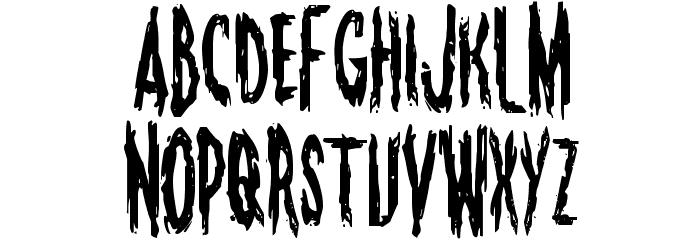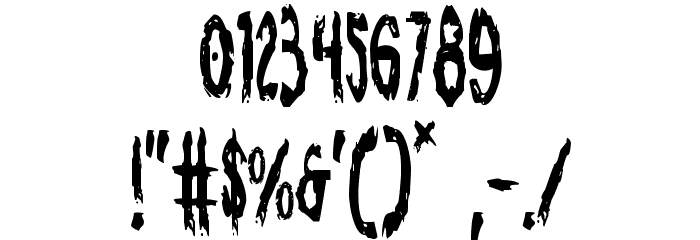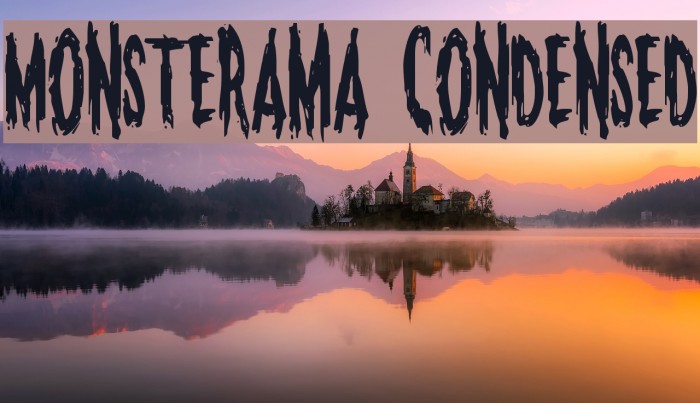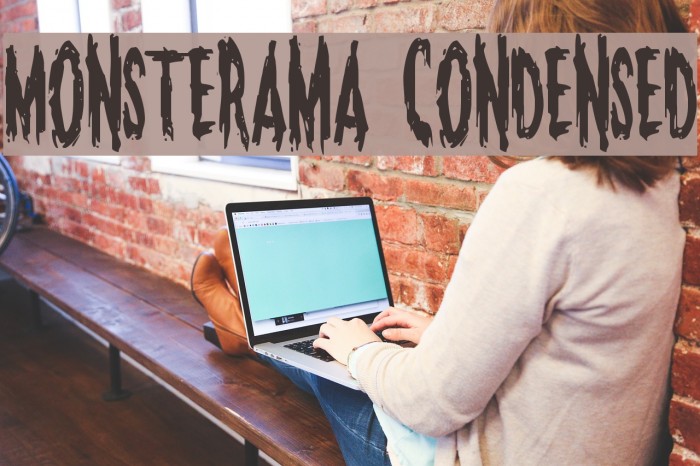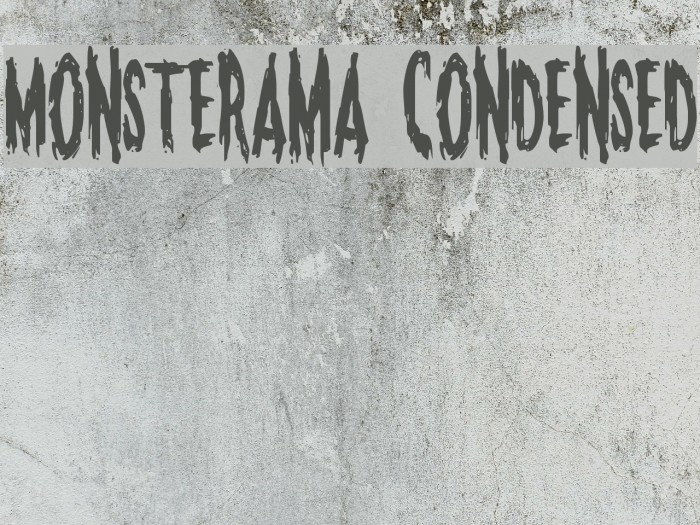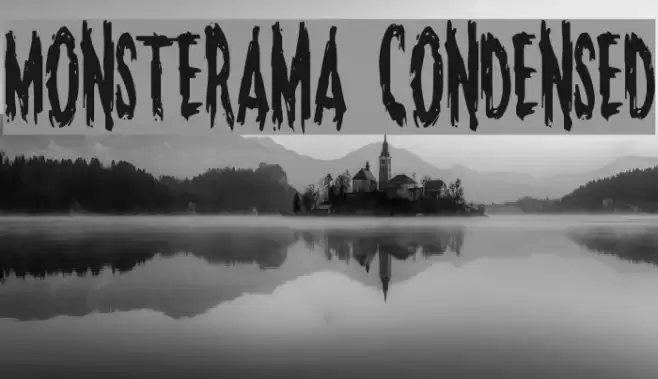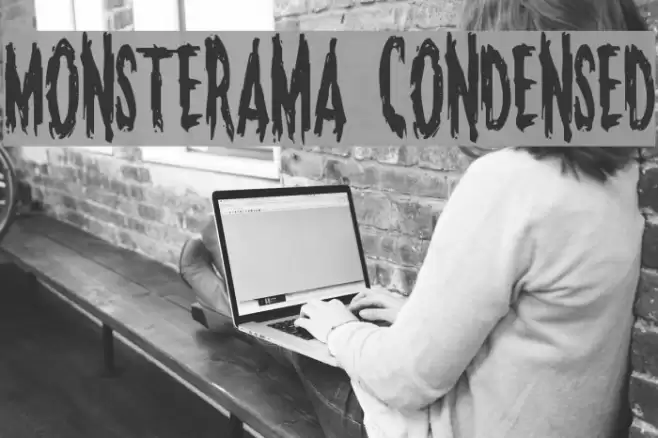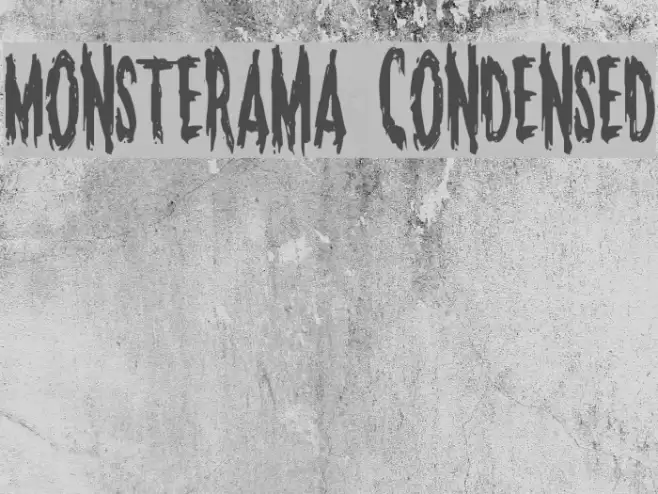
Monsterama Condensed Font
This font features a bold and jagged design, reminiscent of horror or thriller themes. The characters are irregular and distressed, giving them a rough, edgy appearance. The uppercase and lowercase letters maintain a consistent style, with sharp angles and uneven edges that create a sense of movement and chaos. Numbers and special characters follow the same aesthetic, ensuring a cohesive look across all glyphs. The condensed nature of the font allows for tight spacing, making it suitable for impactful headlines or titles. Its unique style is perfect for projects that require a dramatic and eye-catching typeface.
A bold, jagged, and distressed font ideal for horror-themed designs.
- Proposed Projects: Perfect for horror movie posters, Halloween event flyers, spooky-themed merchandise, and video game titles.
- Character Spacing: Tight